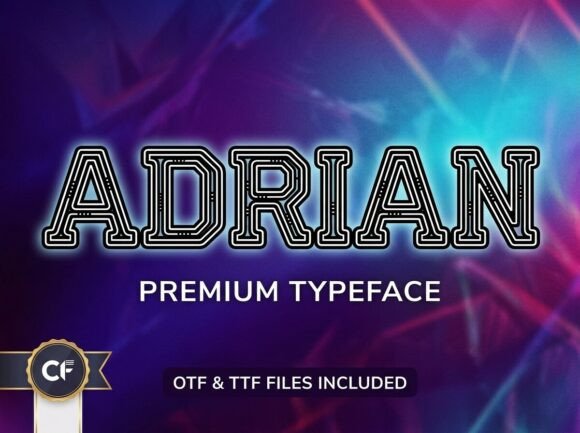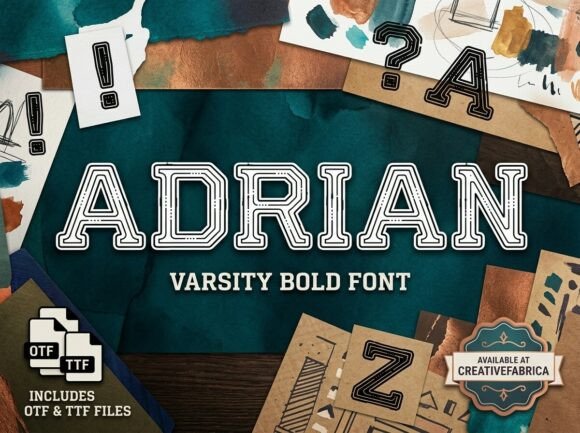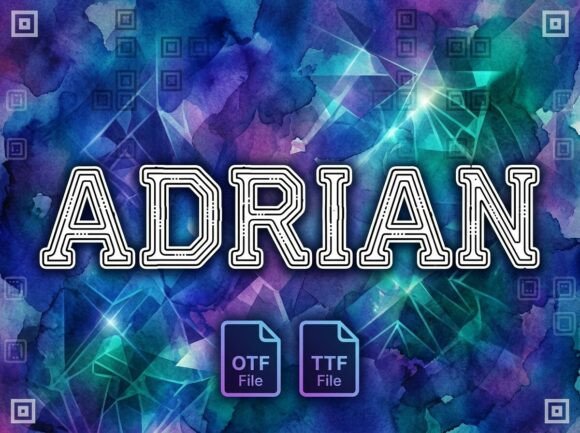
Introducing Adrian Font: A Stunning Decorative Display Font
Are you tired of using the same old fonts for your designs? Do you want to make a statement and break away from the ordinary? Look no further than Adrian Font, a unique and artistic display font that’s sure to turn heads. In this article, we’ll take a closer look at what makes Adrian Font special and how it can elevate your designs.
Adrian Font is a decorative display font that’s designed to be the center of attention. With its unique artistic elements and strong visual personality, this font is perfect for creators who want to make a bold statement. Whether you’re working on a logo, headline, or packaging design, Adrian Font is sure to grab attention and leave a lasting impression.
One of the best things about Adrian Font is its versatility. This font is perfect for a wide range of design applications, from bold headlines and artistic logos to creative packaging and more. And with its professional and polished finish, you can use it with confidence, knowing that your designs will look great across various mediums.
Before you make a purchase, it’s essential to note that Adrian Font is an ALL-CAPS (Uppercase Only) display typeface. This means that it does not include lowercase letters. However, this is by design, as Adrian Font is specifically crafted for high-impact headlines, logos, and decorative initials where every letter is a work of art.
Why Choose Adrian Font?
So why choose Adrian Font over other display fonts on the market? Here are just a few reasons:
• Unique Artistic Elements – Adrian Font features one-of-a-kind artistic elements that will set your designs apart from the crowd.
• Strong Visual Personality – This font has a bold and confident personality that will make your designs stand out.
• Professional and Polished Finish – Despite its bold and artistic nature, Adrian Font maintains a professional and polished finish that’s perfect for a wide range of design applications.
How to Use Adrian Font
Adrian Font is perfect for a wide range of design applications, including:
• Headlines and Titles – Use Adrian Font to create bold and eye-catching headlines and titles that grab attention.
• Logos and Branding – This font is perfect for creating unique and memorable logos and branding elements.
• Packaging Design – Use Adrian Font to add a touch of personality and whimsy to your packaging designs.